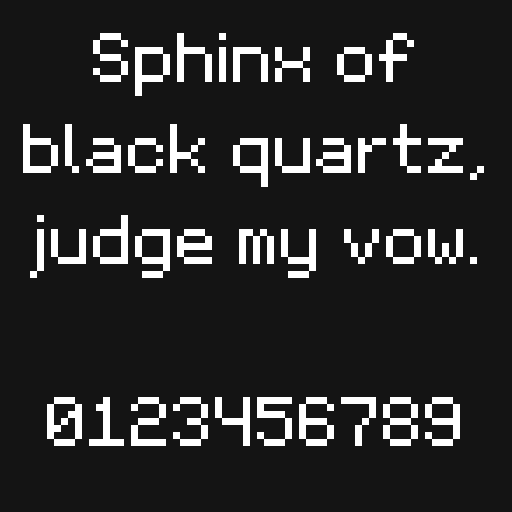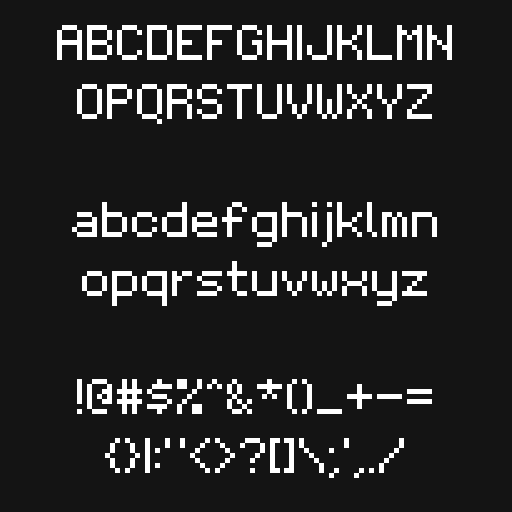
Pixel Font Update - Original Flavour (previously "The OG")
Original Flavour - 9x5 Pixel Font » Devlog
Updates to "The OG" pixel font
- new name! now called "Original flavour"
- more characters added for more language support
- multiple character changes & fixes to improve visual appeal
- minor design fixes & spacing issues with accented characters
Original Flavour - 9x5 Pixel Font
Original Flavour is clean, simple, classic & readable.